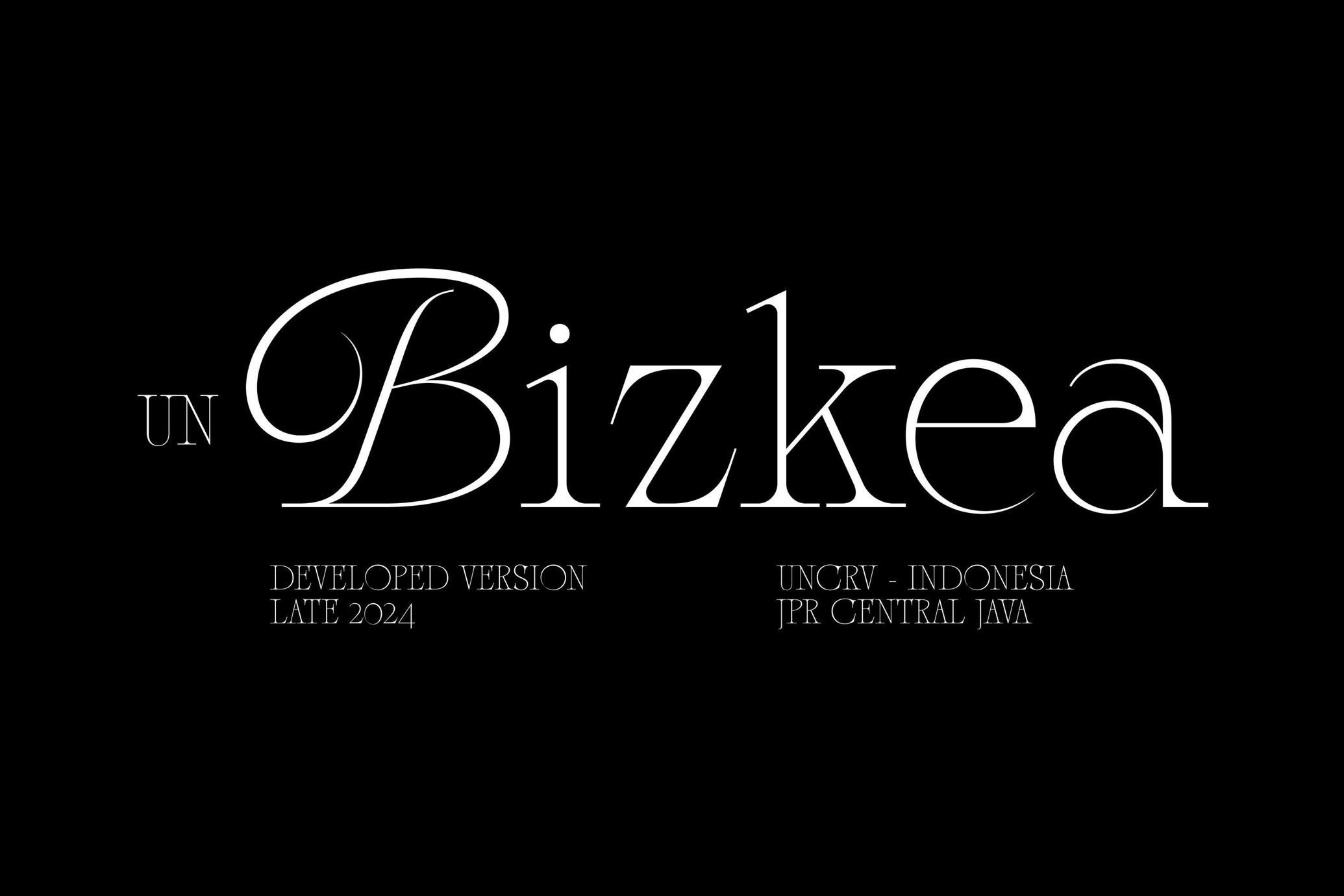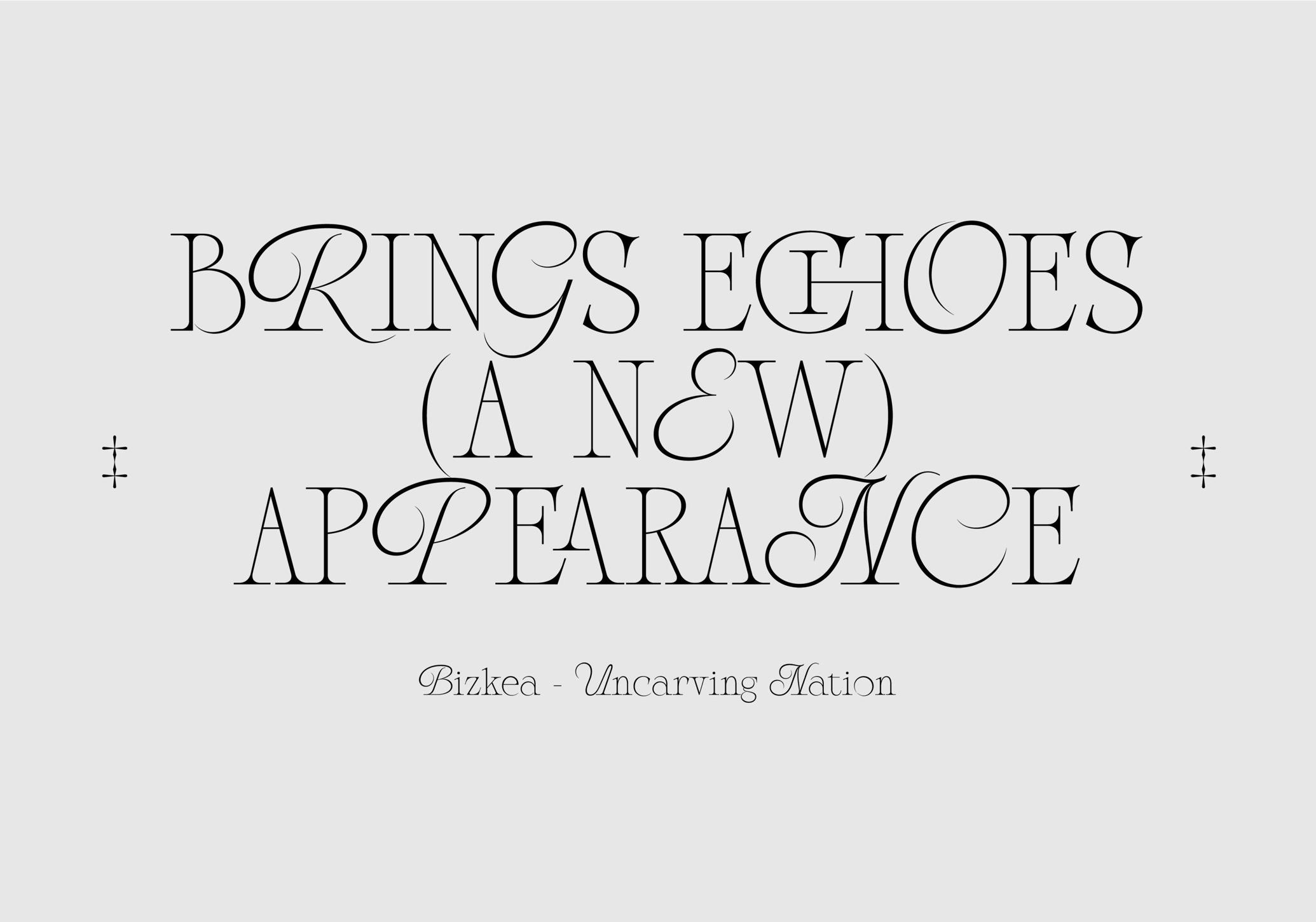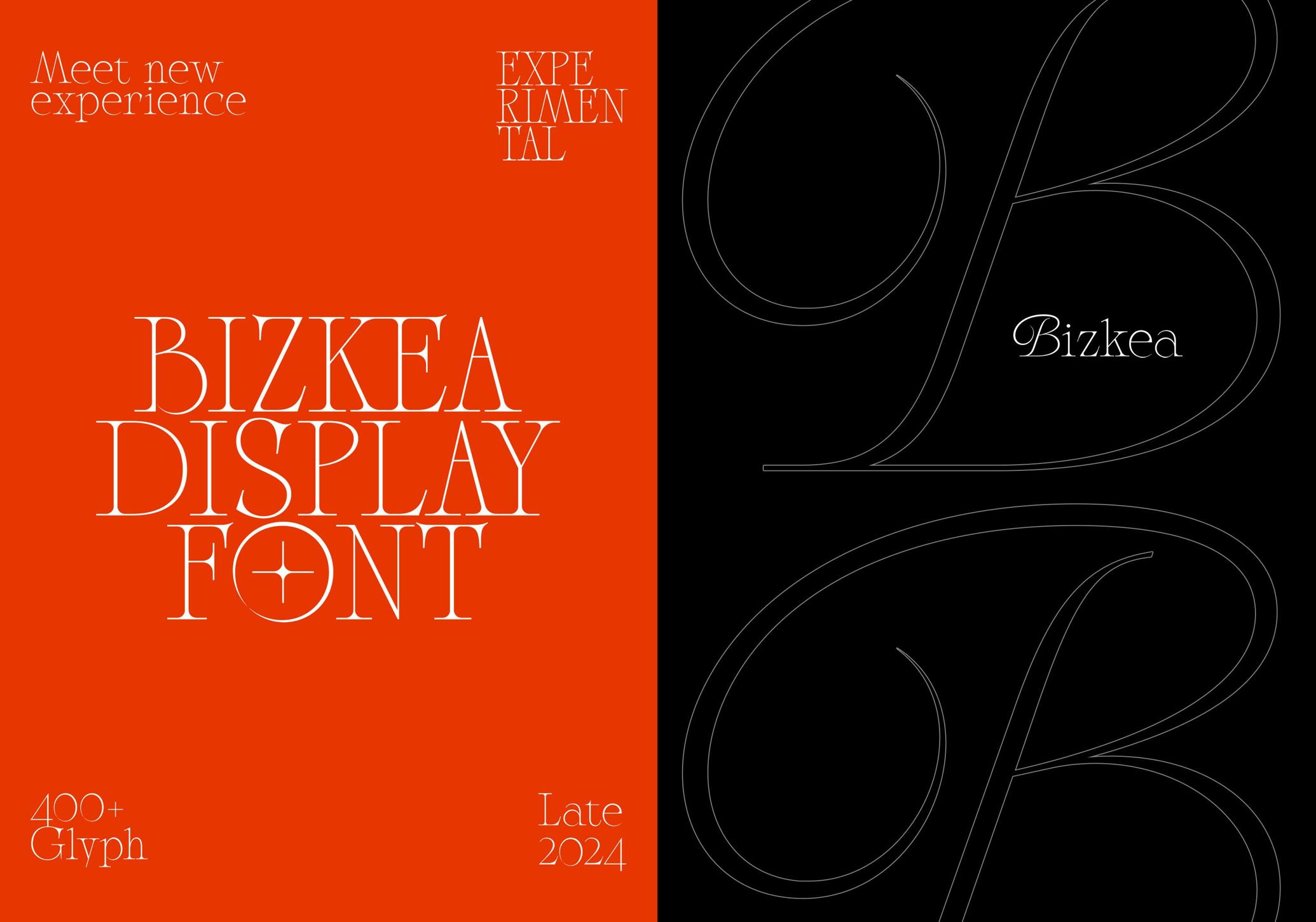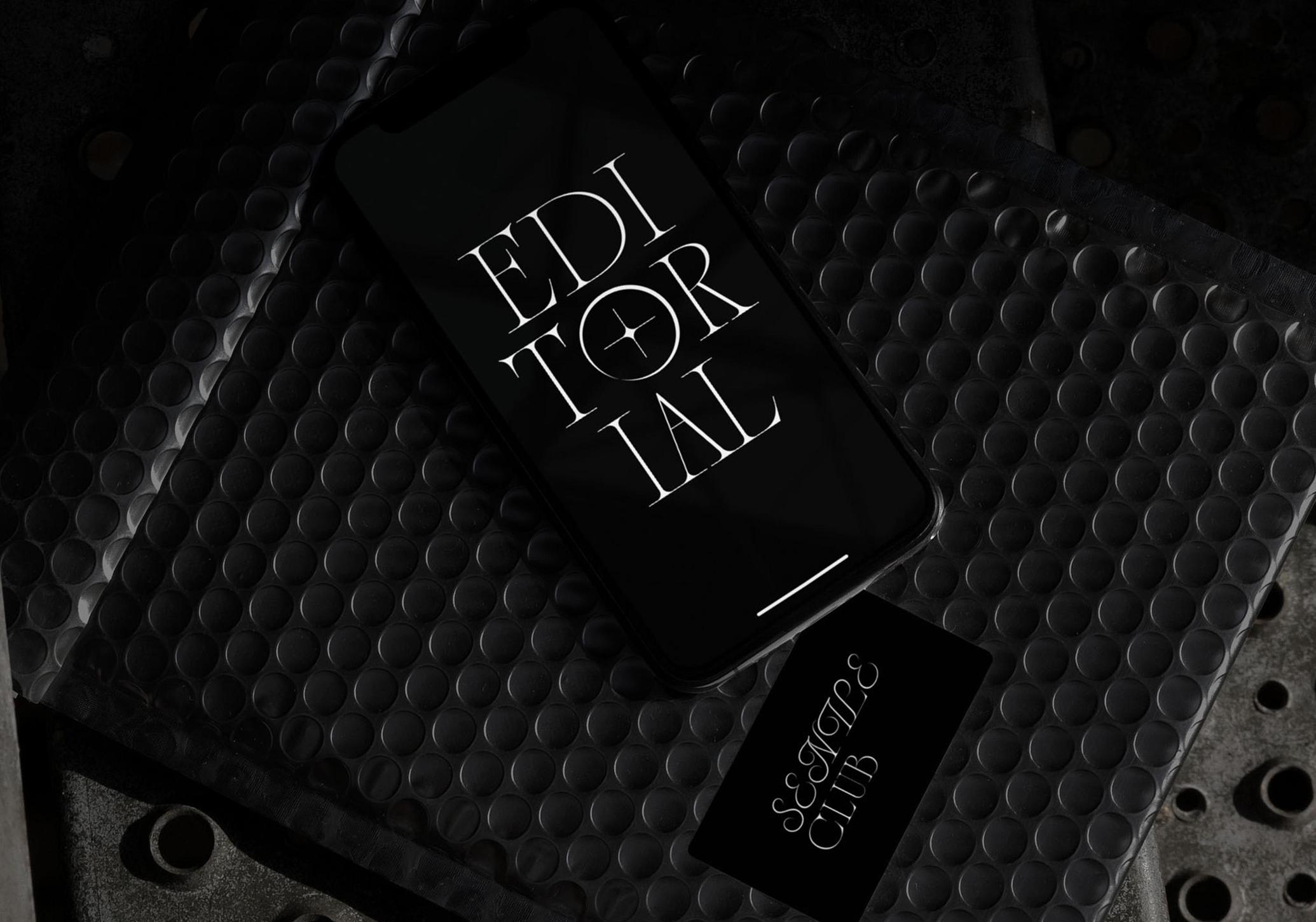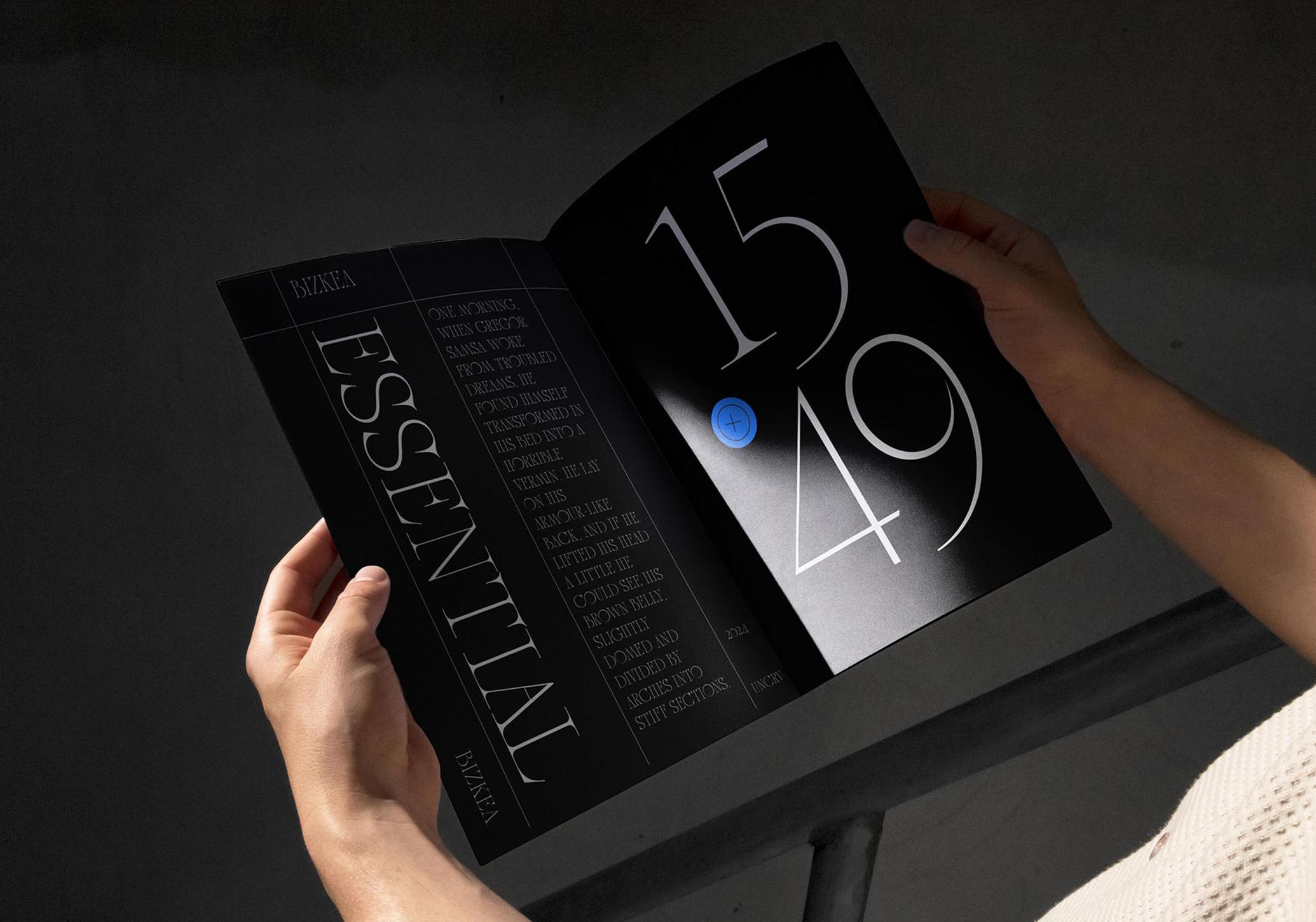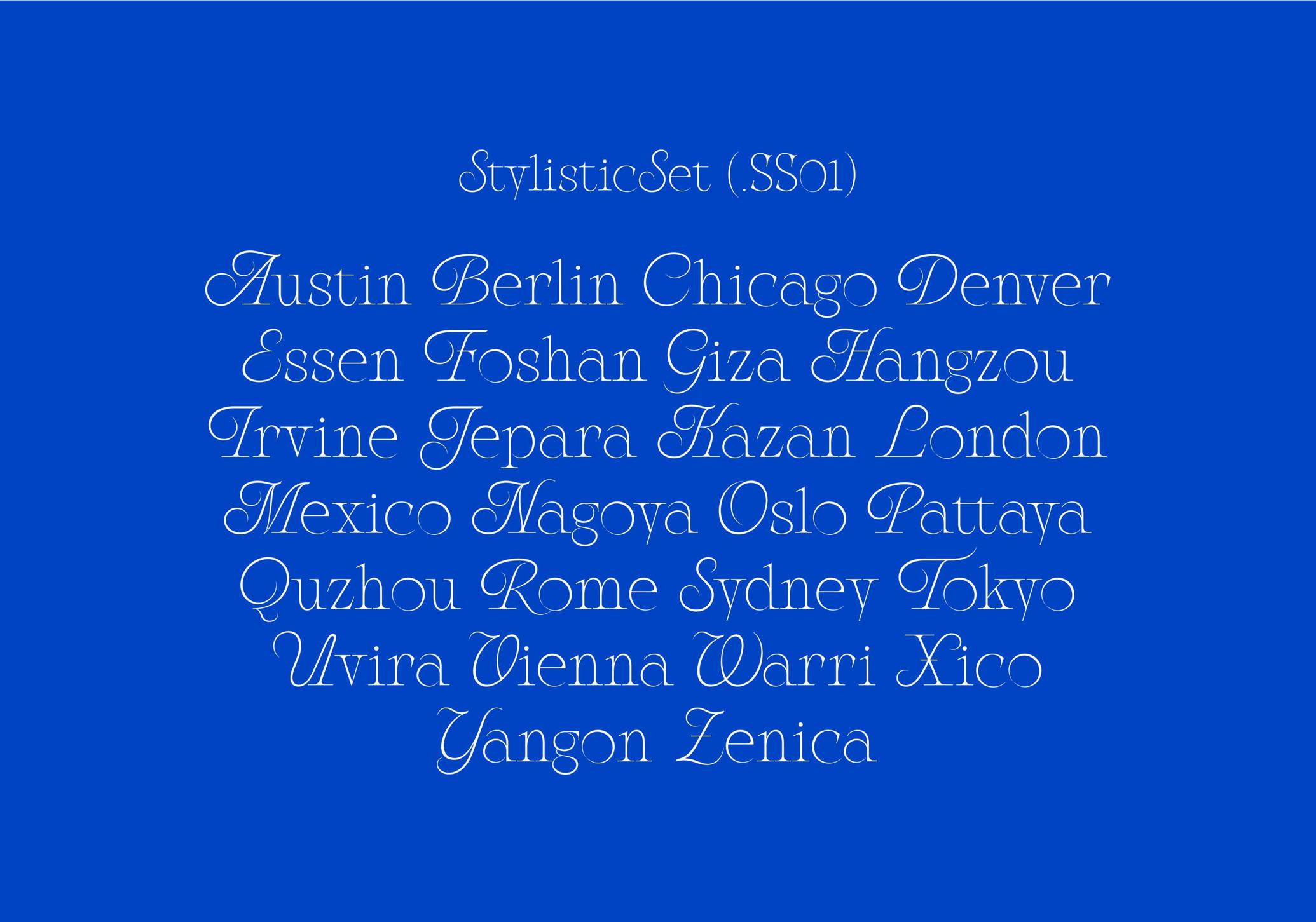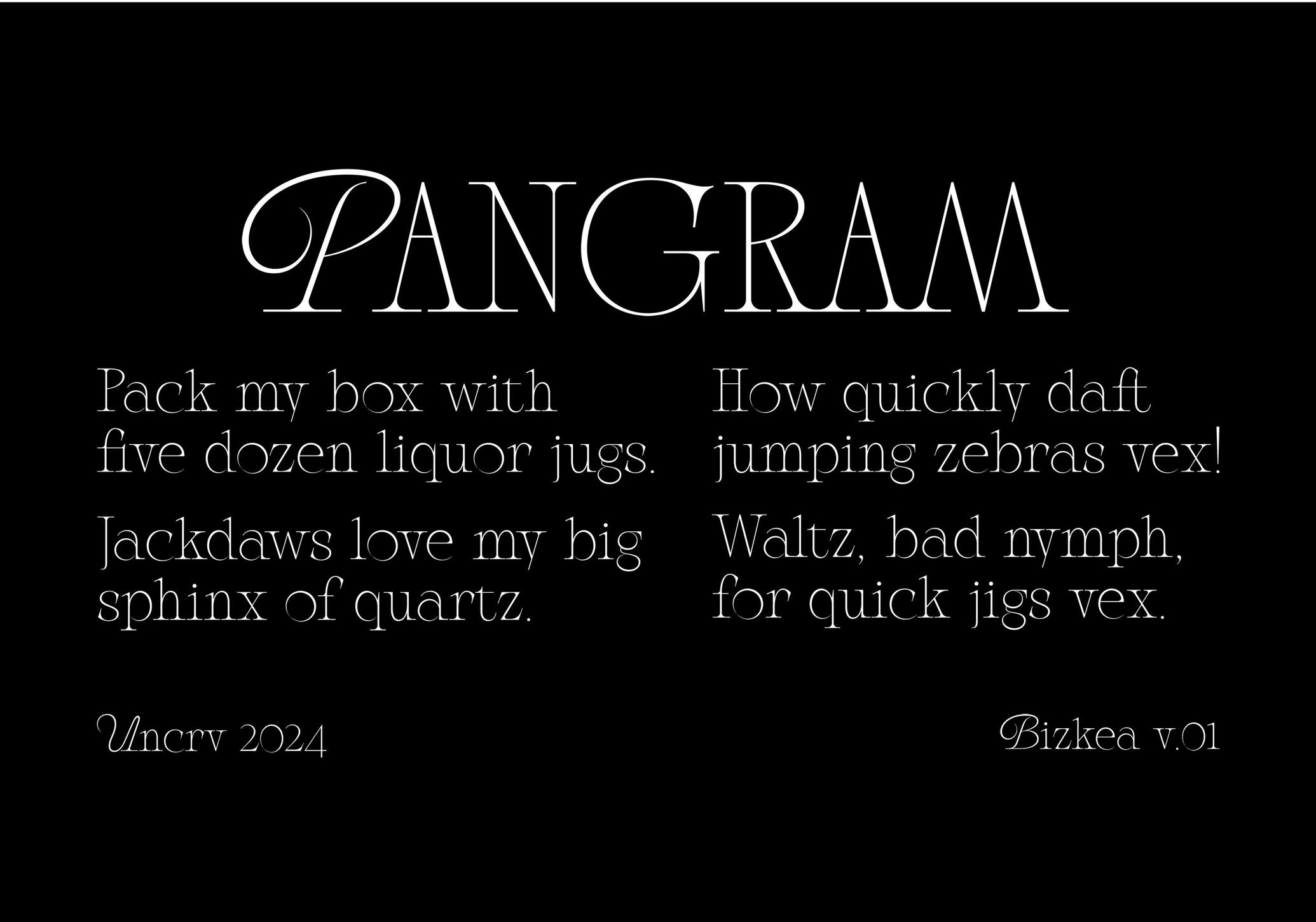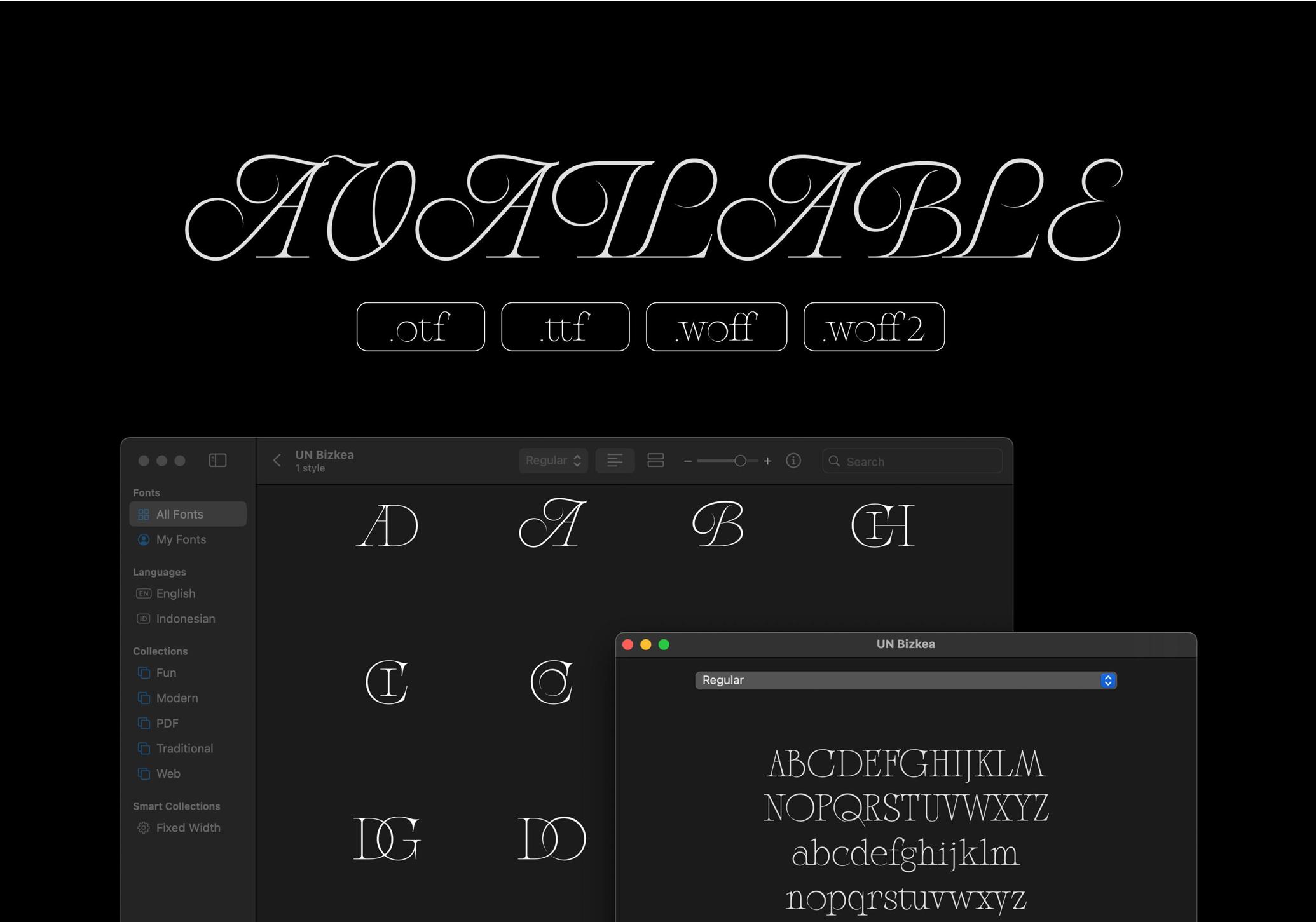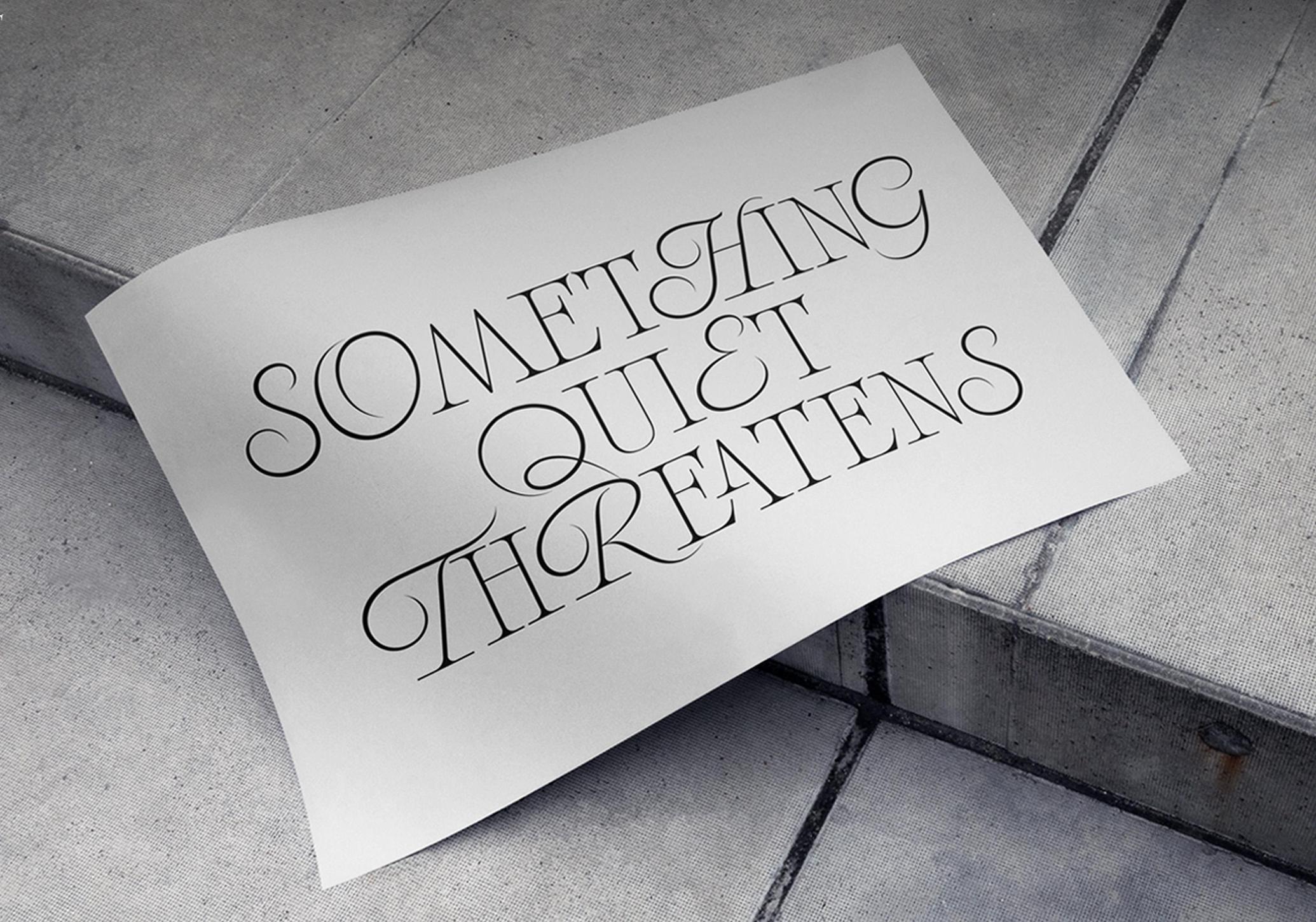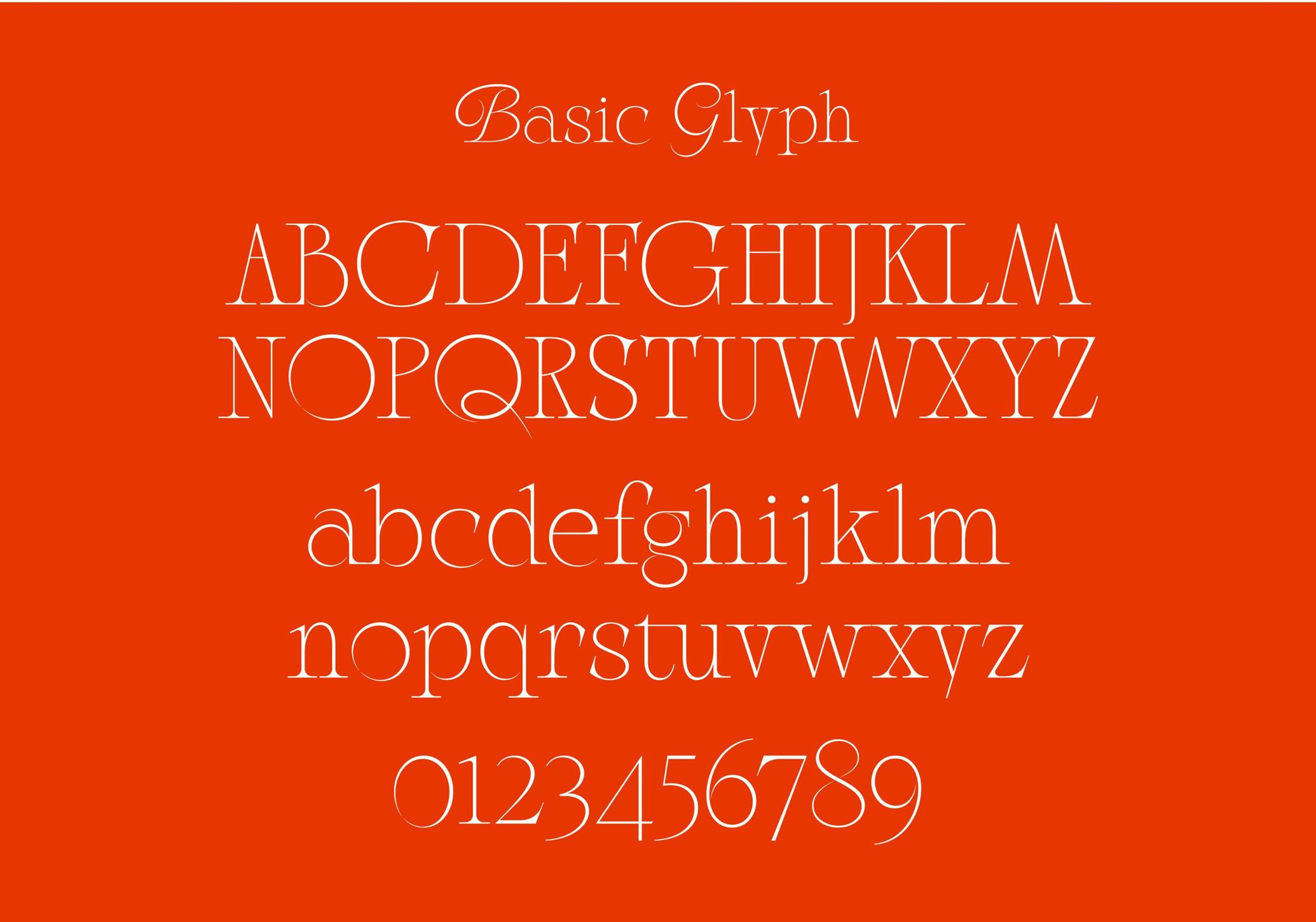
Bizkea — Elegant Serif
Bizkea is a refined display typeface that brings the sophistication of Garalde classics through a contemporary lens. Its sculpted serifs, contrasting strokes, and expressive curves create a balance of poise and personality — elegant, but never ornamental. Ideally suited for editorial headlines, book covers, luxury branding, fashion campaigns, packaging design, cultural posters, gallery identities, and high-end web typography. It’s designed to shine at large sizes, where the details of alternates and ligatures can fully come into play. The set includes uppercase and lowercase characters, numerals, stylistic alternates, ligatures, and multilingual support.